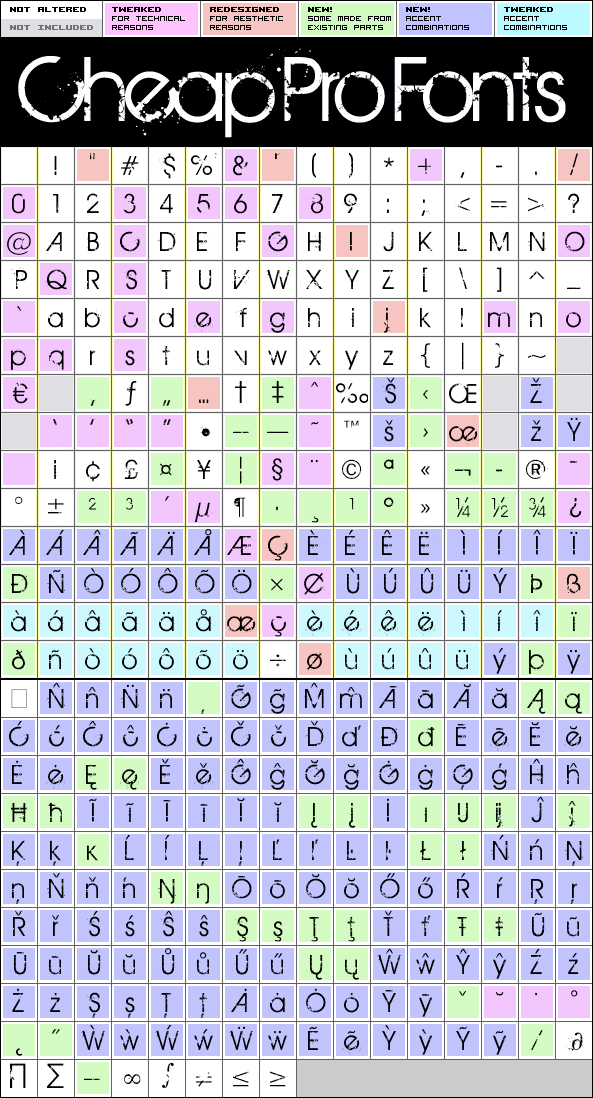
Birth Of A Hero Pro
Birth Of A Hero Pro by Guillaume Séguin
Highlights:
385 glyphs!
(170 in original)
689 class kernpairs
= 12528 kerning pairs
(none in original)
Description:
A grunged-up variant of ITC Avant Garde Gothic – with ultra-tight spacing (uppercase letters are mostly overlapping)! Perfect for that worn but stylish look, now with hugely extended language support!
Birth Of A Hero Pro is a professionally reworked font that contains an extended character set for setting text in 65 languages requiring more than the basic A-Z!